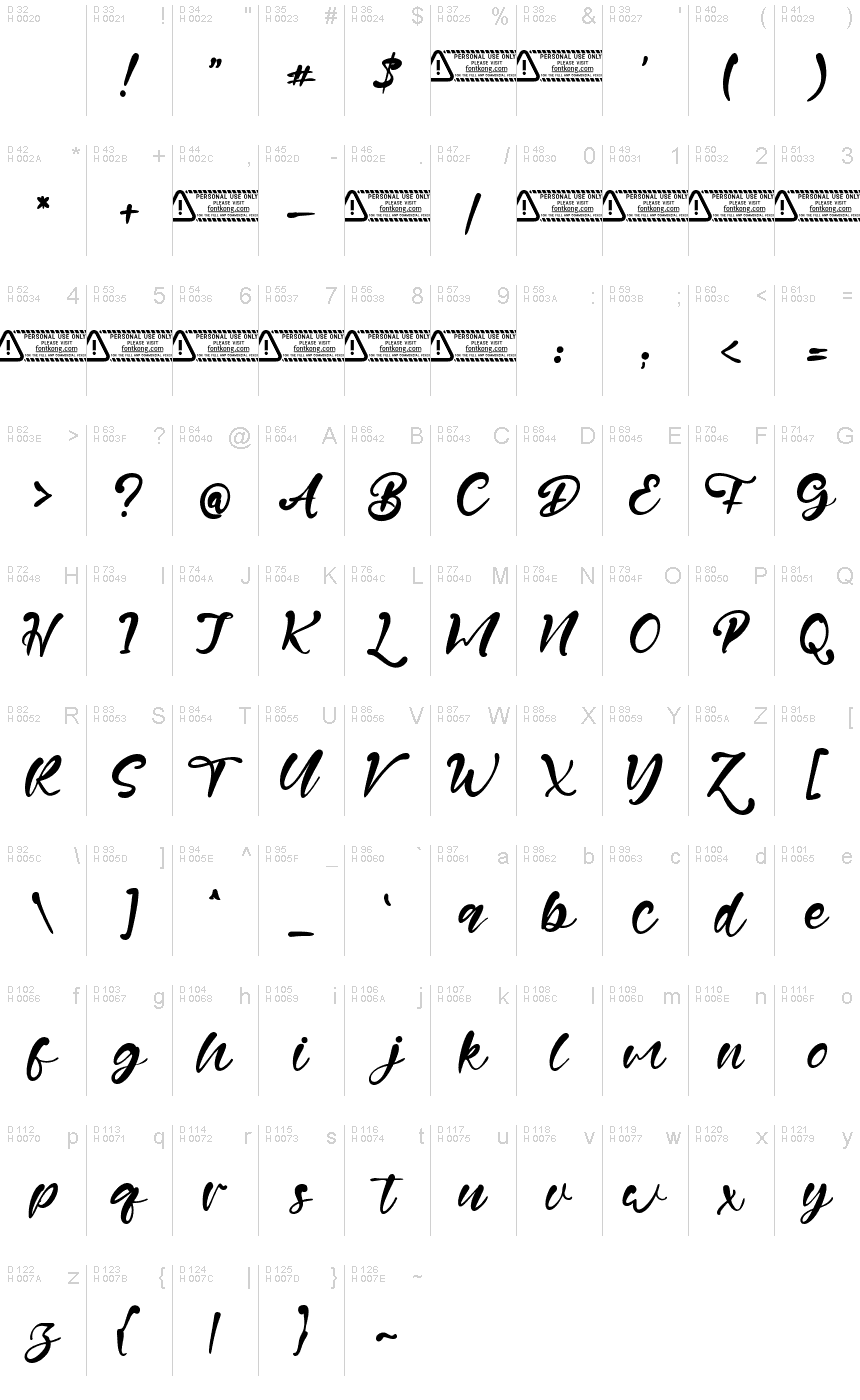
Windy Allan
Windy Allan is a stunning modern script font designed by Kong Font. With its semi-bold weight, it adds a touch of boldness and elegance to any design project. This font is suitable for various projects such as branding, packaging, invitations, social media graphics, and more. Windy Allan will make your designs stand out with its unique and stylish look. Its flowing curves and loops create a sense of movement that captures the eye effortlessly. Whether you're designing for a fashion brand or an upscale restaurant, Windy Allan will elevate your designs to the next level.